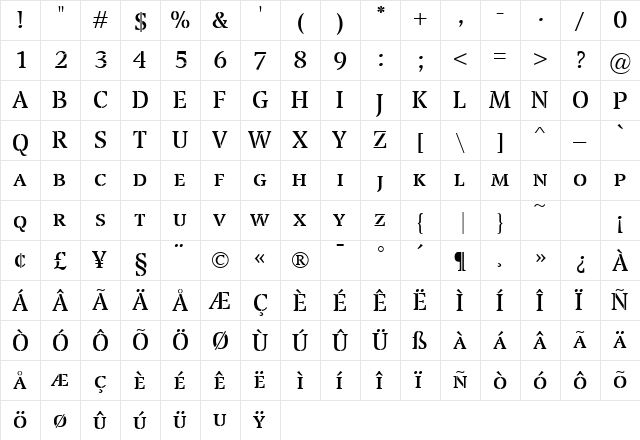
Transport SC Regular
Design Context for Transport SC Typeface
Transport SC brings high-energy athletic personality to the page — its confident, muscular forms are built for impact.
Built for sports team identities, athletic apparel, event posters, and high-energy promotional material.
Font Pairing: Use alongside a condensed or geometric sans for supporting copy — keep the pairing bold, functional, and free of ornament.
Pro Tip: Transport SC thrives on contrast — try it large, bold, and tight against a clean background for maximum visual impact.